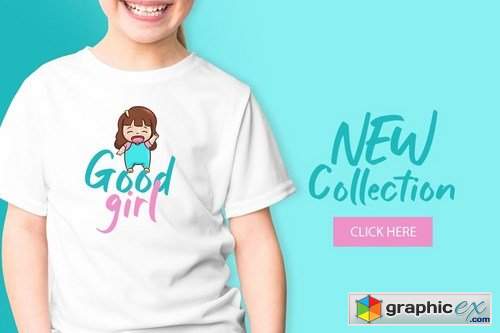
Baby Greta
The Baby Greta is a fun bold display font, fresh & modern style. Baby Greta Font suitable for logo, branding, greeting card, poster and any design that you create.